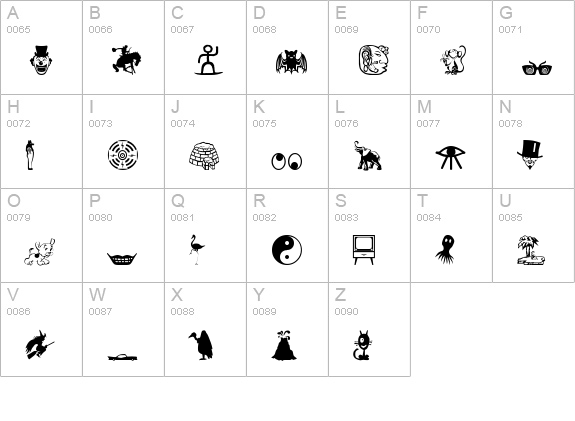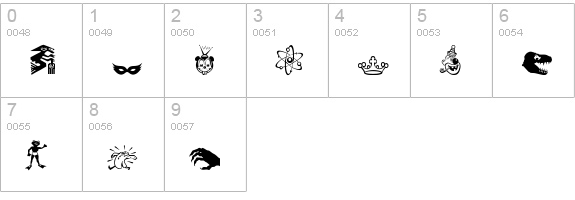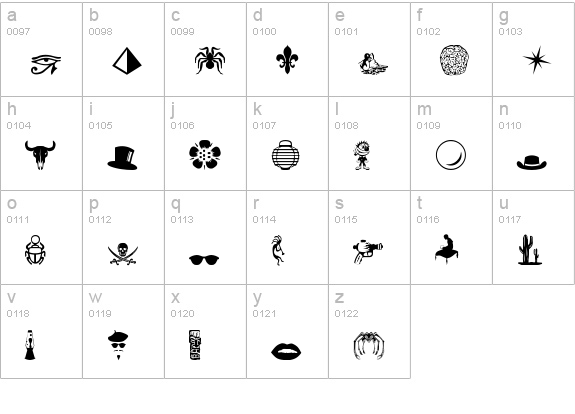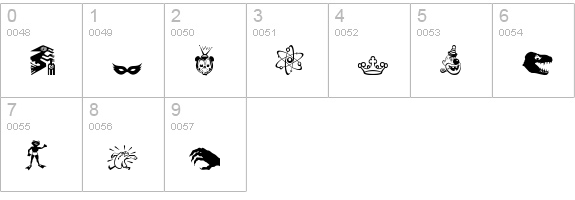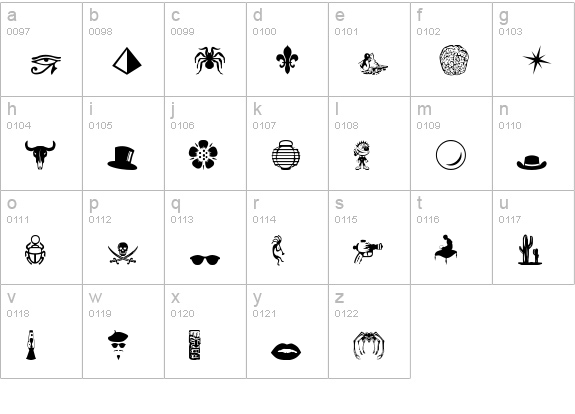
Funway 1 Font Details
Funway 1 font is a delightful and playful typeface designed to bring a sense of fun and whimsy to your projects. With its rounded edges and cheerful characters, Funway 1 is perfect for adding a touch of joy to any design, whether it be for posters, invitations, or social media graphics. This font is not only fun to use, but it is also free to download at FontsMarket.com. Yes, you read that right - completely free! So go ahead and give your projects a fun and lively twist with Funway 1 font without breaking the bank. Download it today and let your creativity run wild!